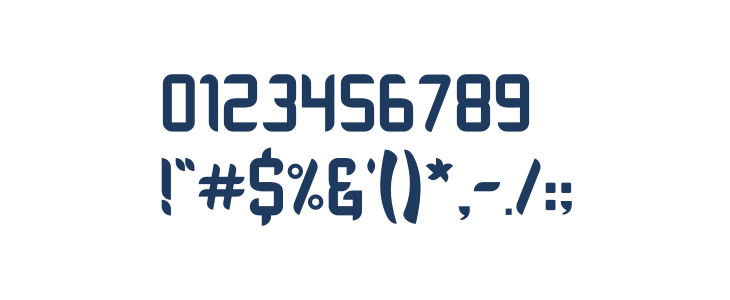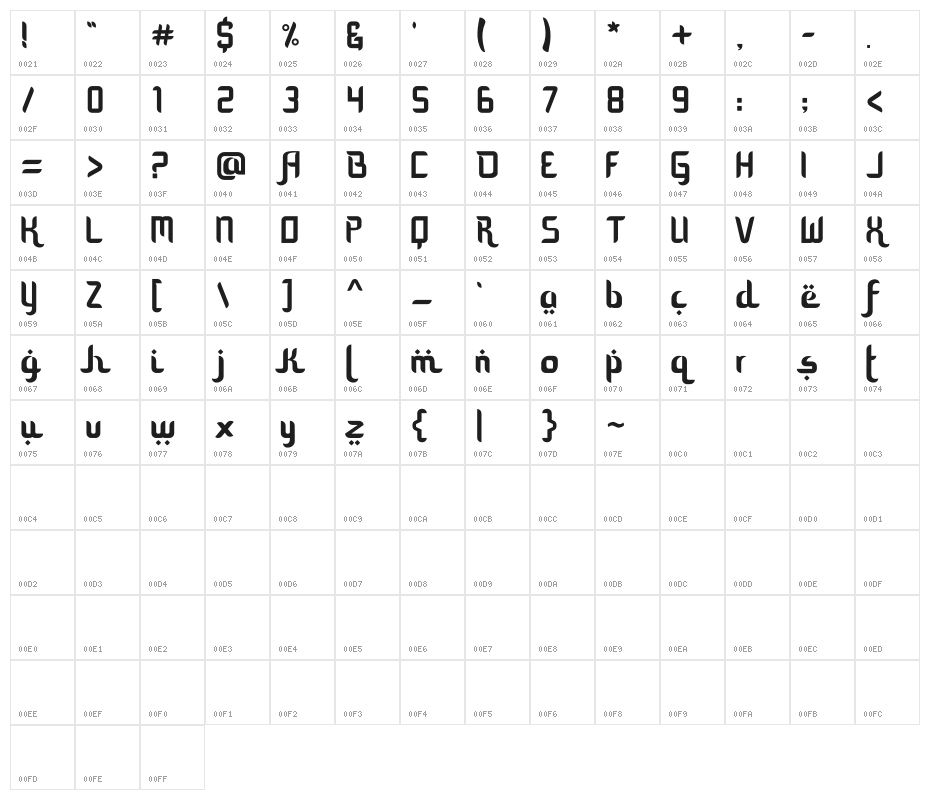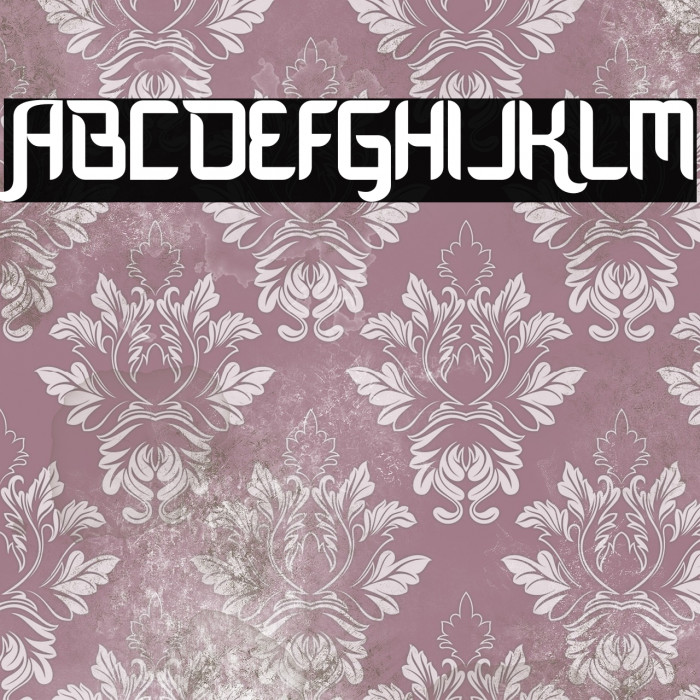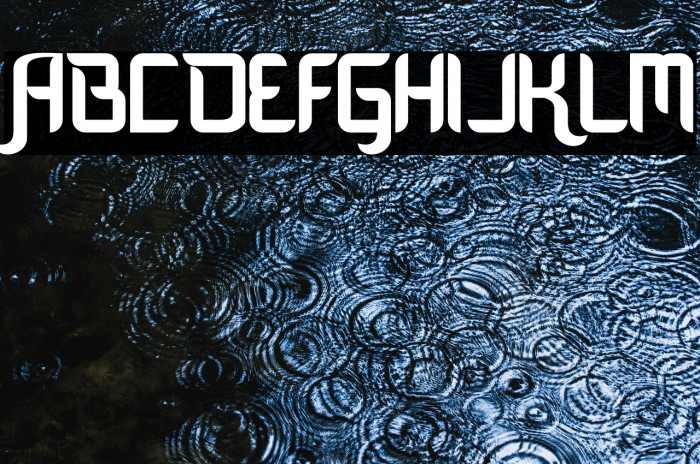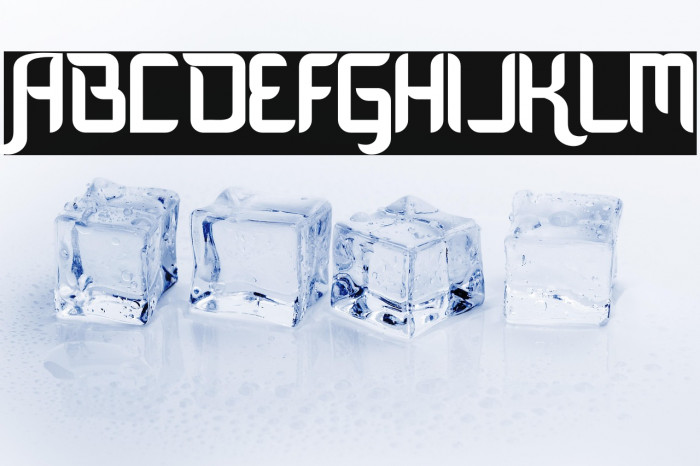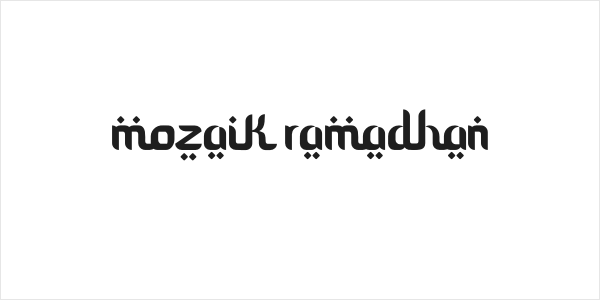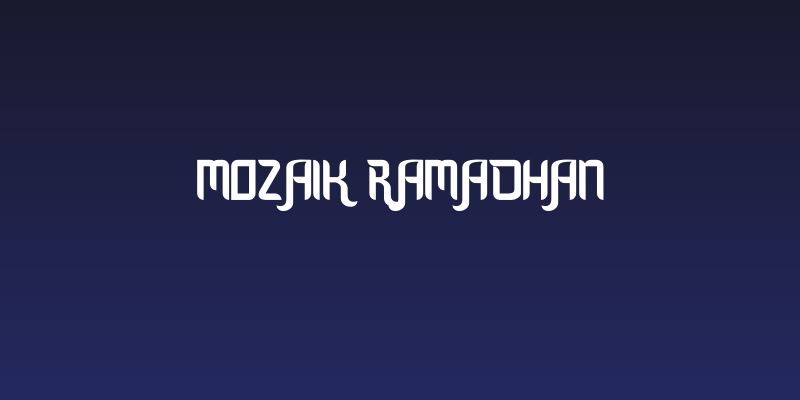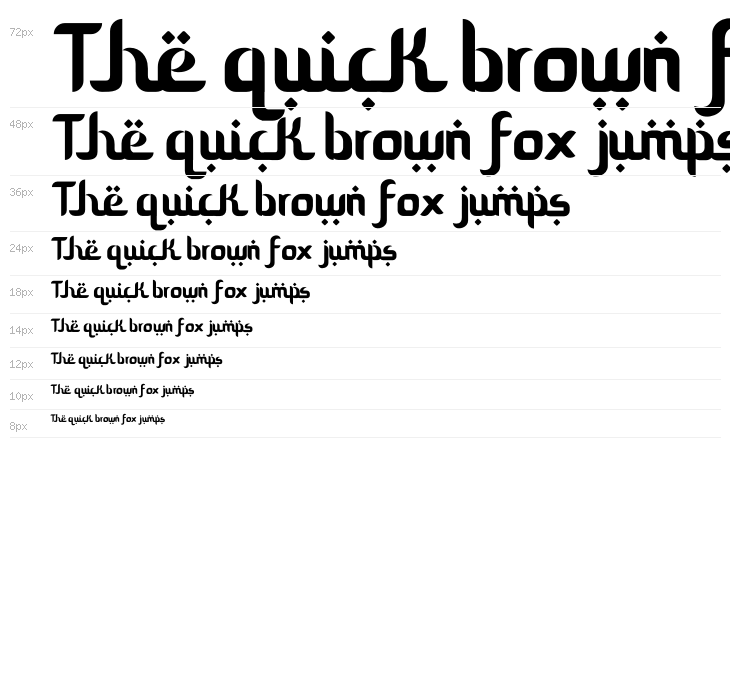
mozaik ramadhan Font
mozaik ramadhan Description
This font features a bold and modern design with a unique geometric structure. The characters are crafted with a blend of sharp angles and smooth curves, creating a dynamic and futuristic appearance. The uppercase letters are particularly striking, with a strong presence that commands attention. The lowercase letters maintain the same geometric style, offering a cohesive look across all text. Numbers and special characters are designed to match the overall aesthetic, ensuring consistency throughout. This font is well-suited for projects that require a contemporary and eye-catching typeface.